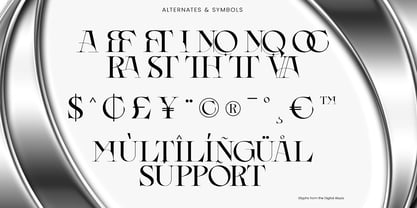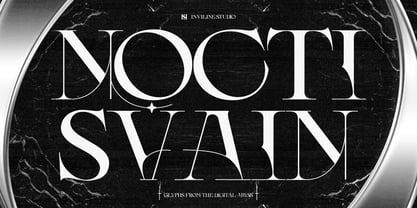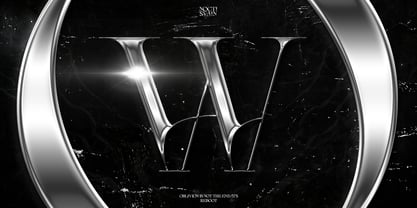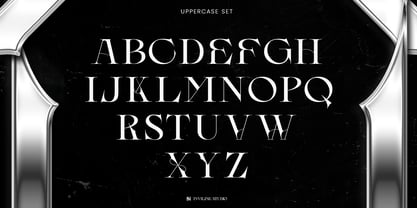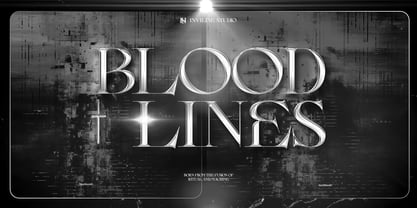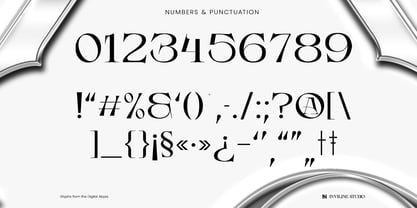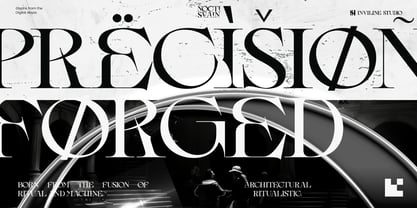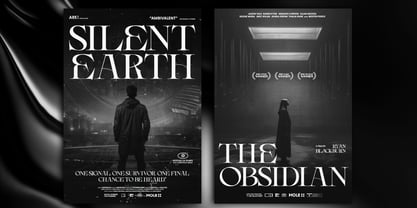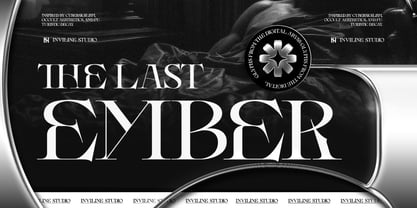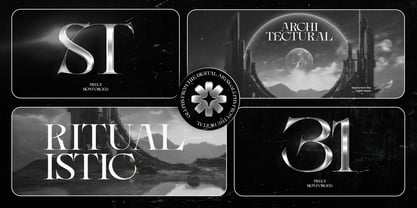
Noctisvain
by Inviline
The Noctisvain Font Family was designed by Virgiawan Listanto and published by Inviline. Noctisvain contains 1 styles. More about this family
Noctisvain is a striking sci-gothic serif typeface inspired by ritual symbolism, cyber aesthetics, and futuristic decay. It features sharp, high-contrast letterforms complemented by elegant curves and precise details. What You Get: a full set of uppercase and lowercase characters, numbers, punctuation, stylistic alternates, unique symbols, multilingual support, and beautifully crafted ligatures. This typeface is perfect for cinematic posters, sci-fi branding, fashion editorials, album covers, luxury logos, tech campaigns, gaming titles, and dystopian visuals. Its bold headline typography commands a dramatic and mysterious presence, making it an ideal choice for projects that require a captivating and unique aesthetic.
Designers: Virgiawan Listanto
Foundry: Inviline